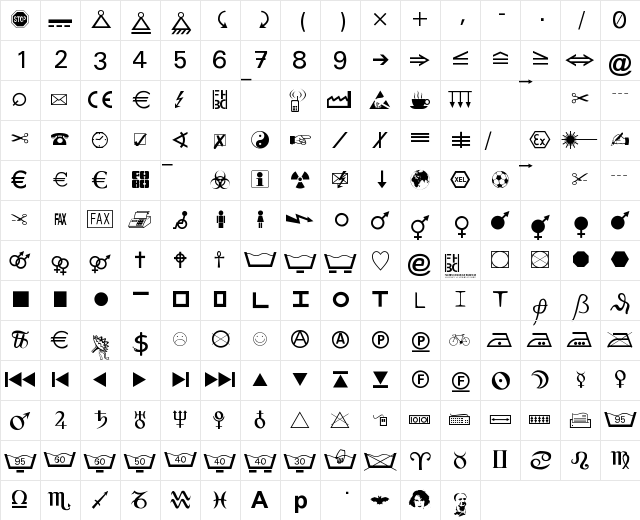
Complete Martin Vogel's Symbols Regular glyph index. Displaying only characters natively supported by Martin Vogel's Symbols Regular font.
Martin Vogel's Symbols is a composed and adaptable typeface that performs quietly and consistently across a wide range of design contexts.